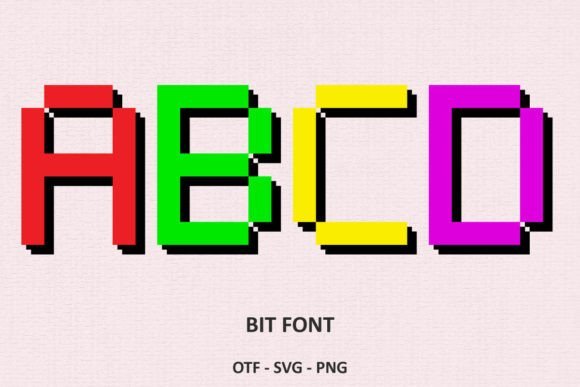
Bring Back the Retro Vibe with Bit Font Font
Who hasn’t felt that rush of excitement when they stumble upon the perfect font for their project? For designers, it’s like finding a missing puzzle piece that brings everything together. You’re in the middle of brainstorming ideas for a birthday card, and suddenly, you remember that one font that screams “fun” and “playful” – Bit Font Font. This digital font is a loving tribute to the 8-bit display font of the past, but with a modern twist that’s sure to captivate your audience.
With Bit Font Font, you can create a wide range of designs that exude a cute and friendly vibe. Whether it’s a book cover, a T-shirt, or a greeting card, this font is sure to add that extra special something that makes your project stand out. And the best part? It’s incredibly versatile, making it a valuable addition to any designer’s toolkit.
Key Features of Bit Font Font
- Unique Characteristics: This font features a unique blend of modern and vintage elements, making it perfect for designs that require a touch of nostalgia and sophistication.
- Font Variations: Bit Font Font comes in multiple styles, including Regular, Italic, Bold, and Bold Italic, offering designers flexibility and creative freedom.
Bit Font Font Review
I recently had the chance to work with Bit Font Font, and I must say it’s an interesting font. Here are my honest thoughts.
- Unique aesthetic: Bit Font Font has a distinctive, futuristic look that’s perfect for sci-fi or tech-related projects.
- Limited legibility: The font’s futuristic look can make it difficult to read, especially at smaller font sizes.
- Not suitable for body text: Due to its unusual design, Bit Font Font is better suited for headlines or titles rather than body text.
- Lack of consistency: Some characters, such as the lowercase ‘i’ and ‘l’, can be difficult to distinguish from one another.
Bit Font Font is a bold, attention-grabbing font that’s perfect for making a statement. While it may not be suitable for every project, it’s a great choice for those looking for a unique, futuristic aesthetic.
Bit Font Font is ideal for creating minimalist and modern designs in Canva. Use it to create eye-catching headings, titles, and captions.
Inter Font compares to Bit Font Font by offering a more neutral and modern aesthetic, while Bit Font Font has a more industrial and technological feel. Inter Font is also more versatile and can be used in a variety of contexts, whereas Bit Font Font is more suited for tech-related designs.